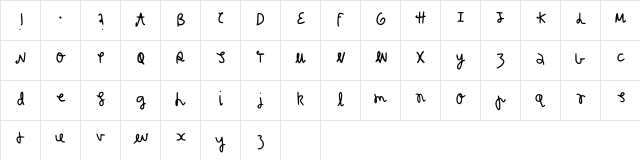
Silly Gal Regular
Design Context for Silly Gal Typeface
Silly Gal is a composed and adaptable typeface that performs quietly and consistently across a wide range of design contexts.